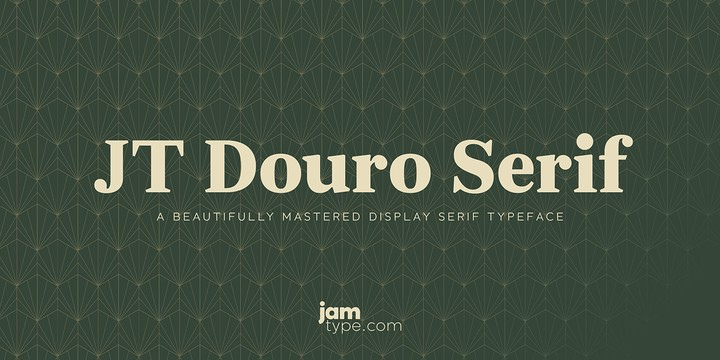
JT Douro Serif Font
JT Douro Serif Font is perfect for luxury hotel branding, fine wine labels, premium restaurant menus, high-end fashion magazines, elegant wedding invitations, sophisticated book publishing, upscale real estate marketing, and classical music concert programs. This distinguished typeface excels in applications where timeless elegance and refined sophistication are essential for creating memorable brand experiences.
What makes JT Douro Serif Font truly exciting is its masterful interpretation of classical serif traditions with contemporary refinement. The font features graceful letterforms with subtle contrast and delicate bracketed serifs that create an atmosphere of understated luxury. Its carefully balanced proportions and harmonious rhythm demonstrate exceptional typographic craftsmanship, while the elegant curves and precise details ensure both beauty and functionality. The typeface's versatile character allows it to convey authority and tradition while maintaining accessibility for modern audiences across various media platforms.
The JT Douro Serif Font family includes multiple weights from Thin to Black, complemented by matching italic versions that enhance its expressive range. The font offers extensive OpenType features including small capitals, old-style and lining figures, ligatures, and comprehensive multilingual support. Additional stylistic alternates and swash characters provide designers with enhanced creative flexibility for custom typography solutions and distinctive brand applications.